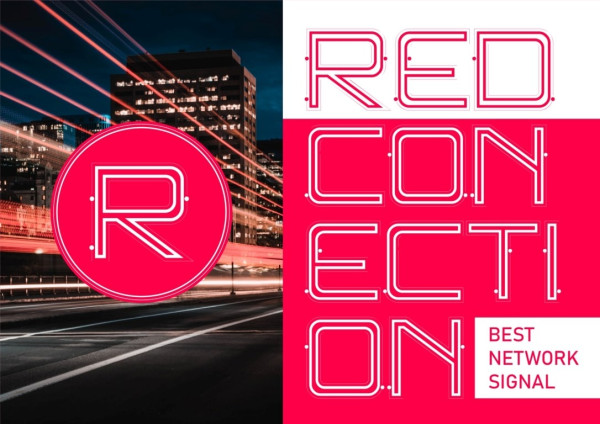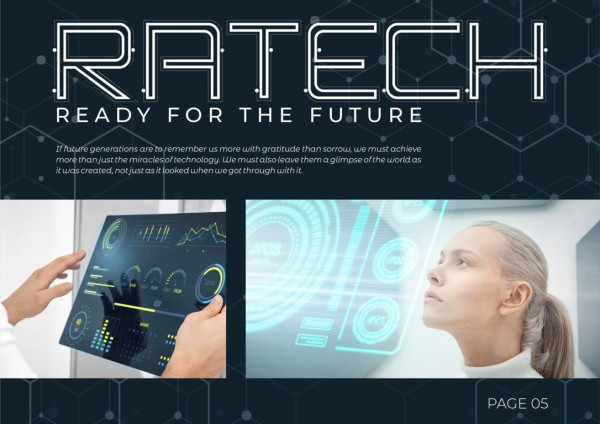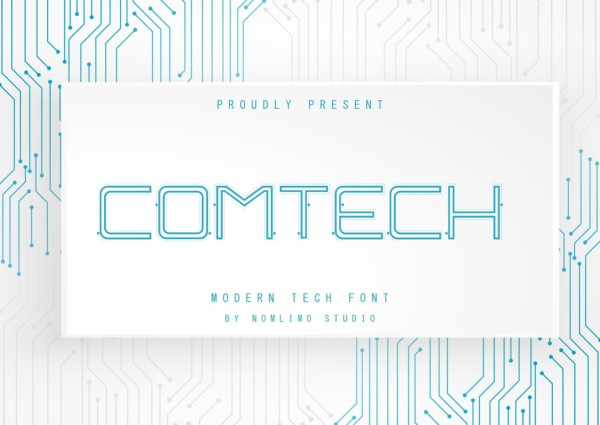
Comtech Display Font
Comtech Display Font, a one-of-a-kind and imaginative design meticulously crafted to offer you an innovative typeface. Drawing inspiration from the world of science fiction, this font is an ideal choice for your upcoming project, particularly if you aim to infuse it with a futuristic ambiance. Comtech Display Font brings a fresh and forward-thinking vibe, allowing you to create designs that transport your audience into the realms of tomorrow. Unleash your creativity with Comtech and embrace a font that pushes the boundaries of design, offering a glimpse into the possibilities of the future.